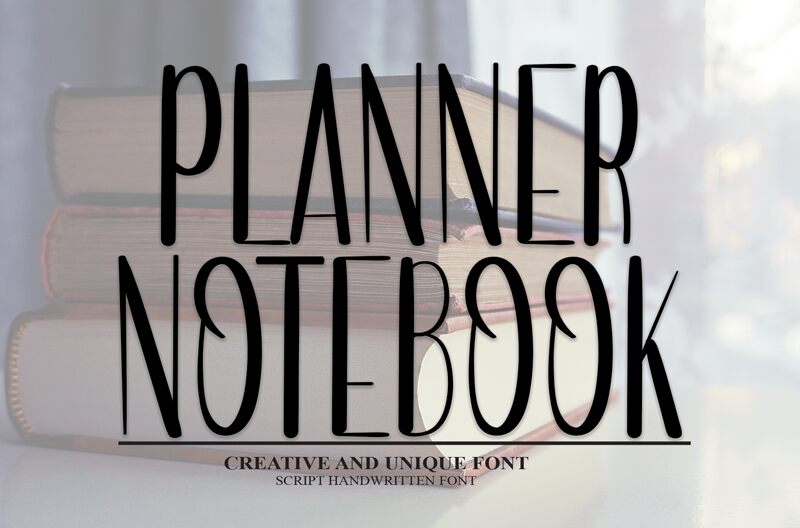
Planner Notebook font by creatype designer presents a unique script design with smooth lines and a personalized feel. Its style is balanced and friendly, characterized by a slightly playful approach that is more precise and minimalistic. Its visual effect resembles that of a hand marker drawing with consistent line widths and rounded ends.
This font is well suited for projects and applications such as branding, stationery, packaging, online content, social media, and more. The font can even be used in fabric design, along with invitations, cards, stickers, posters, titles, or print. Essentially, any element where one might want to add a playful retro touch.
This font features a classy calligraphic influence combined with a contemporary and fresh feel. Its versatility makes it ideal for a variety of creative projects, including letterheads, titles, and stationery.